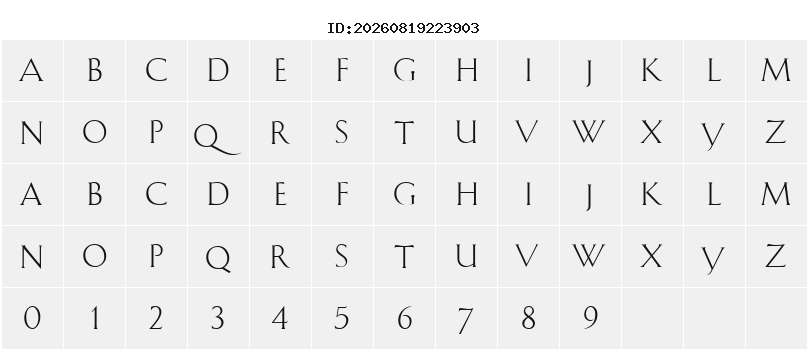
• Font Name: ShangoRegular
• Full Font Name: ShangoRegular
About ShangoRegular.ttf
ShangoRegular.ttf is a modern, elegant sans-serif font designed for ultimate readability and visual harmony. Perfect for branding, headlines, web design, and print materials.